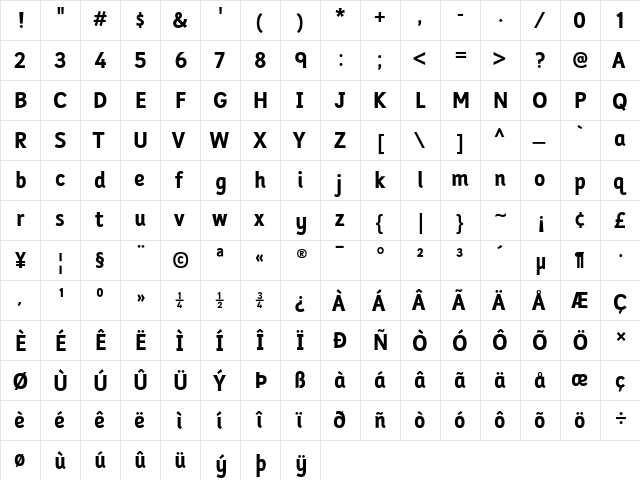
Folder Bold Font Preview
Folder Bold
Folder Bold Font Details
Design Context for Folder Typeface
Folder is a composed and adaptable typeface that performs quietly and consistently across a wide range of design contexts. Its bold stroke weight gives it real presence on the page.